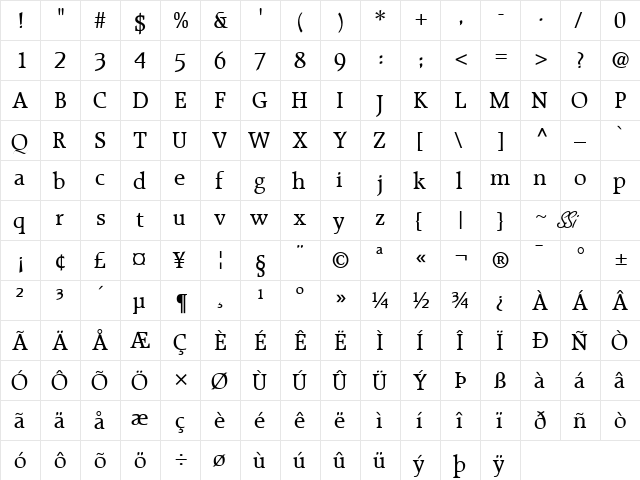
Recognita Book SSi Medium
Design Context for Recognita Book SSi Typeface
Recognita Book SSi takes a measured approach to typography — its balanced proportions and neutral character make it a reliable workhorse for both digital and print work.